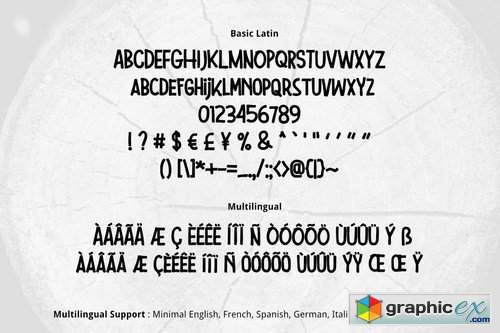
Timber Slicer
Timber Slicer Font is simple vintage multipurpose handmade font, suitable for many project children book, quotes, logo , heading , title etc.